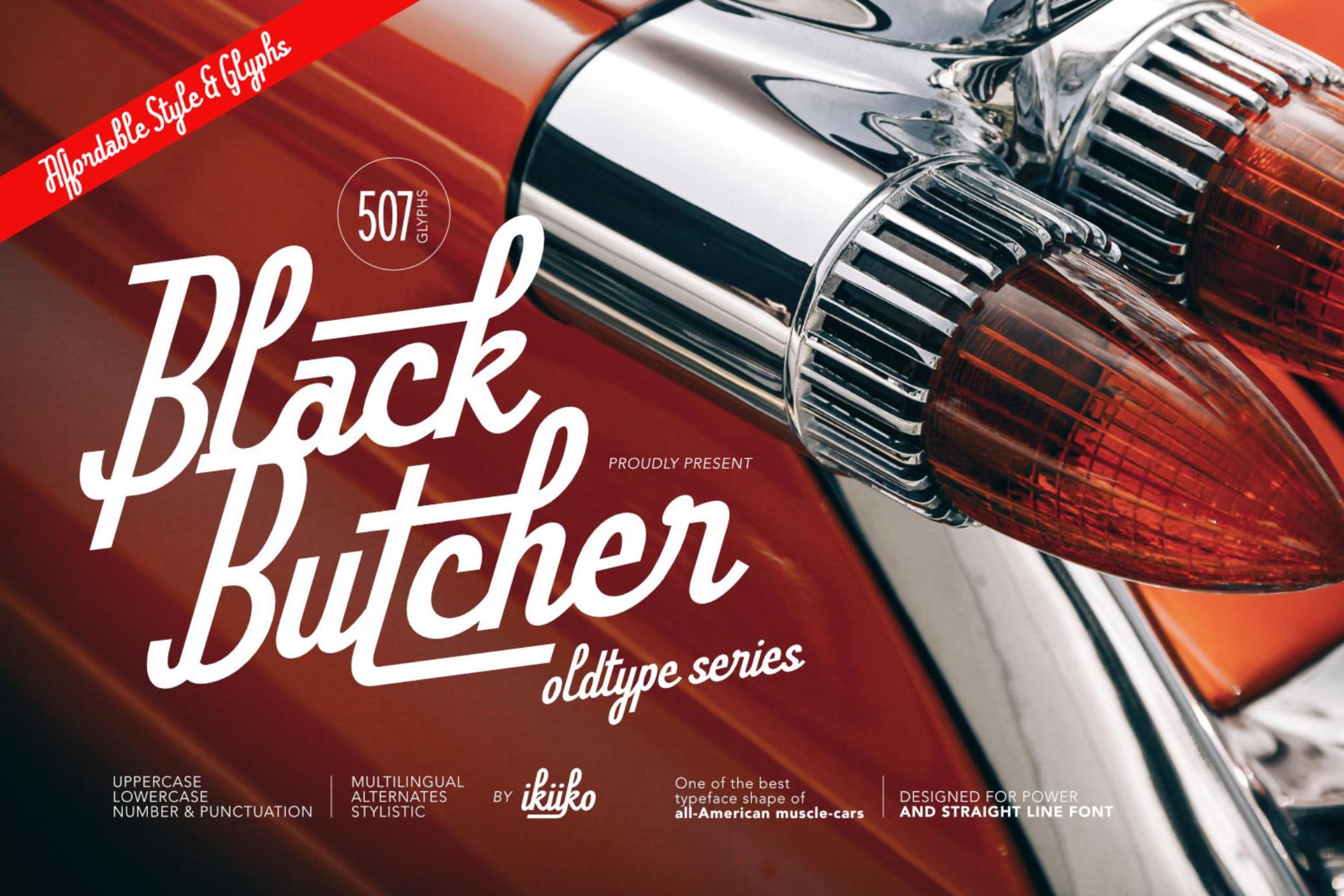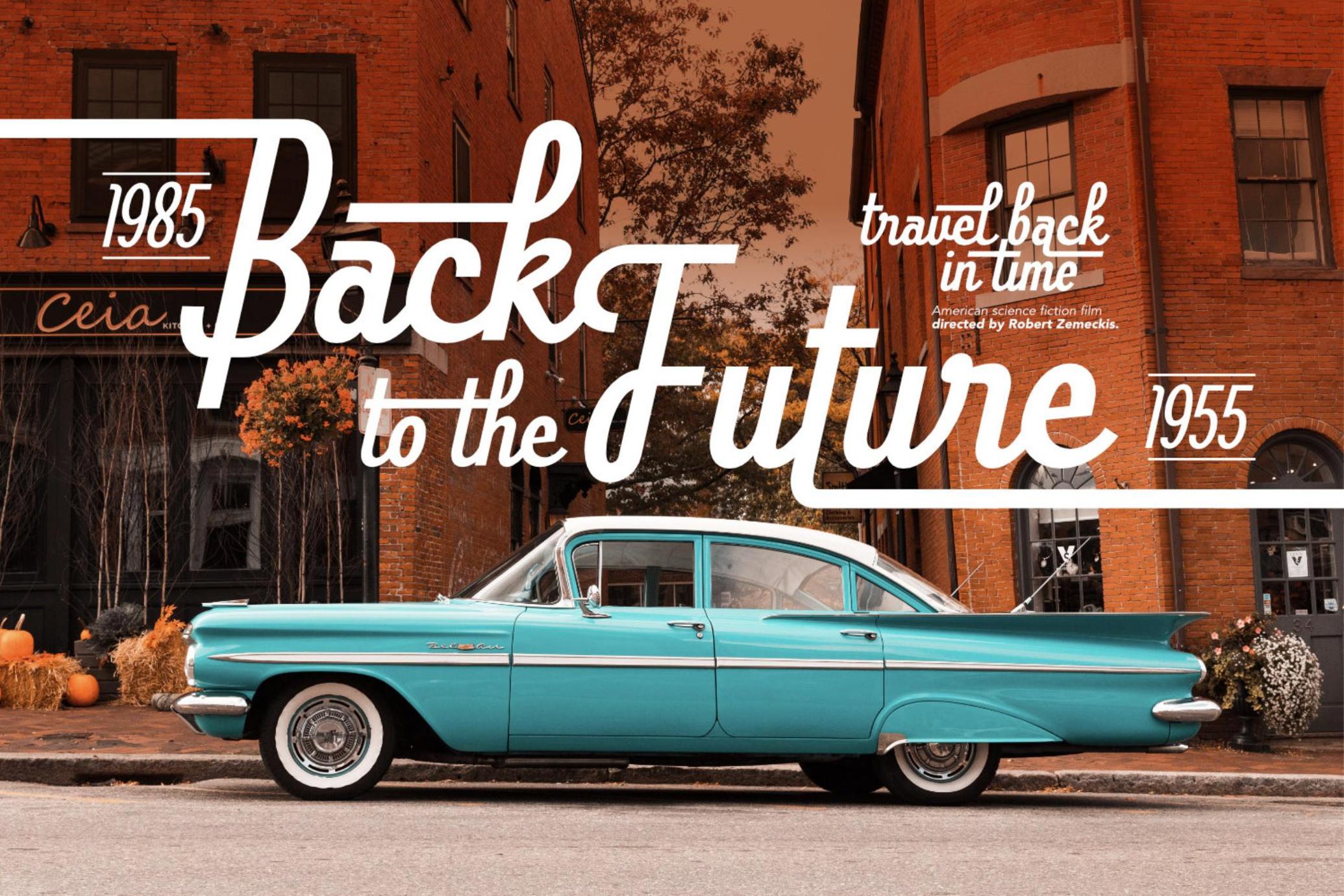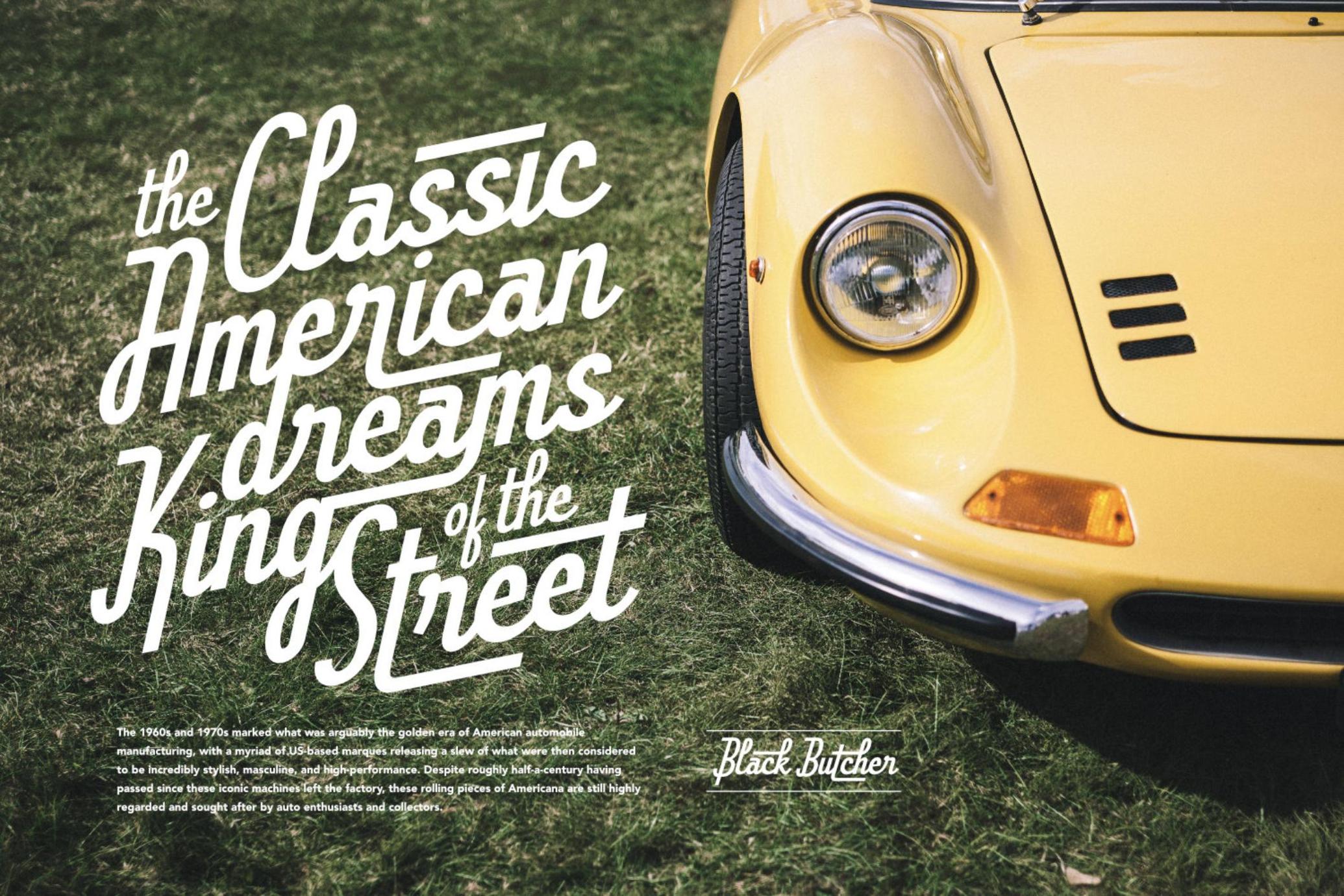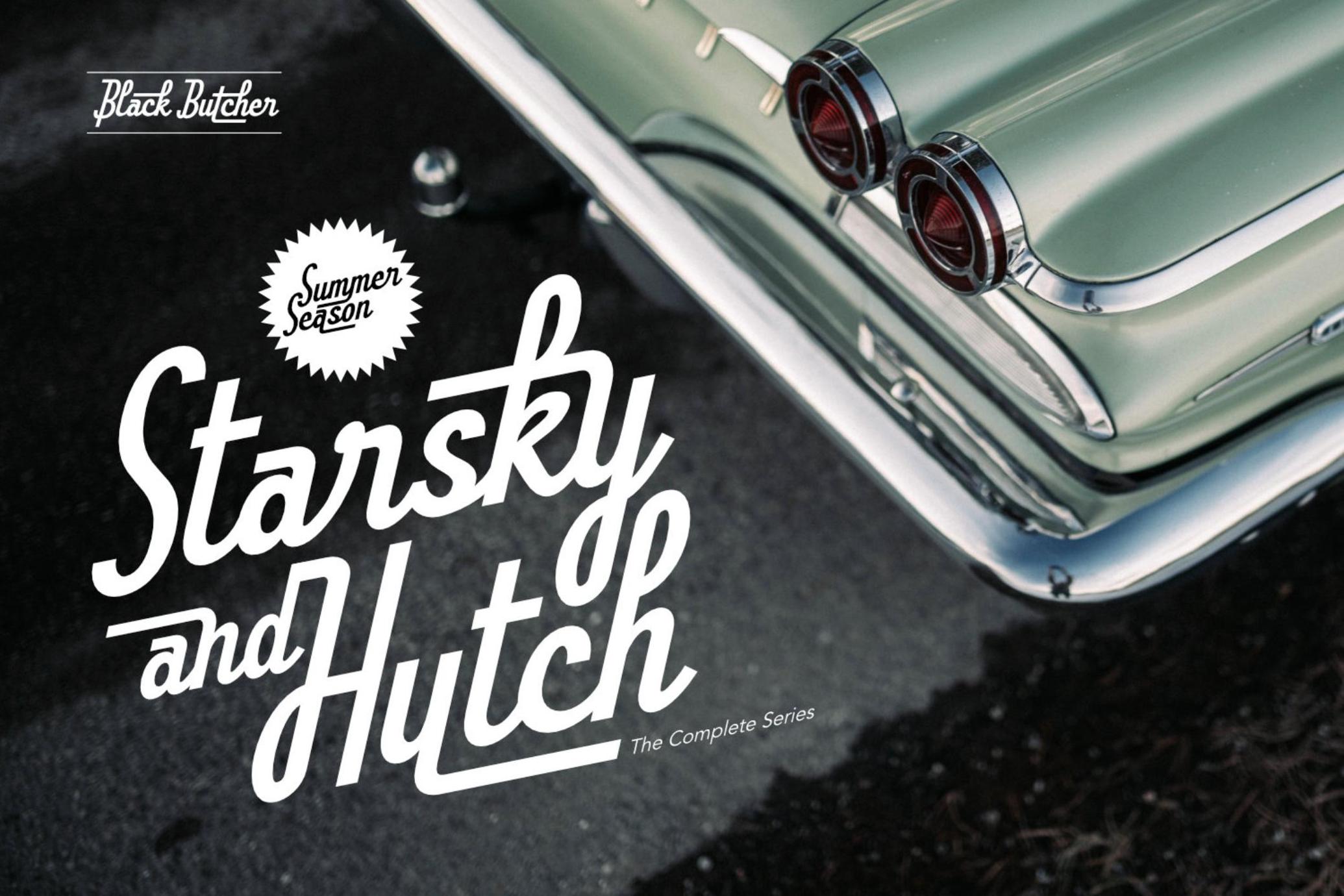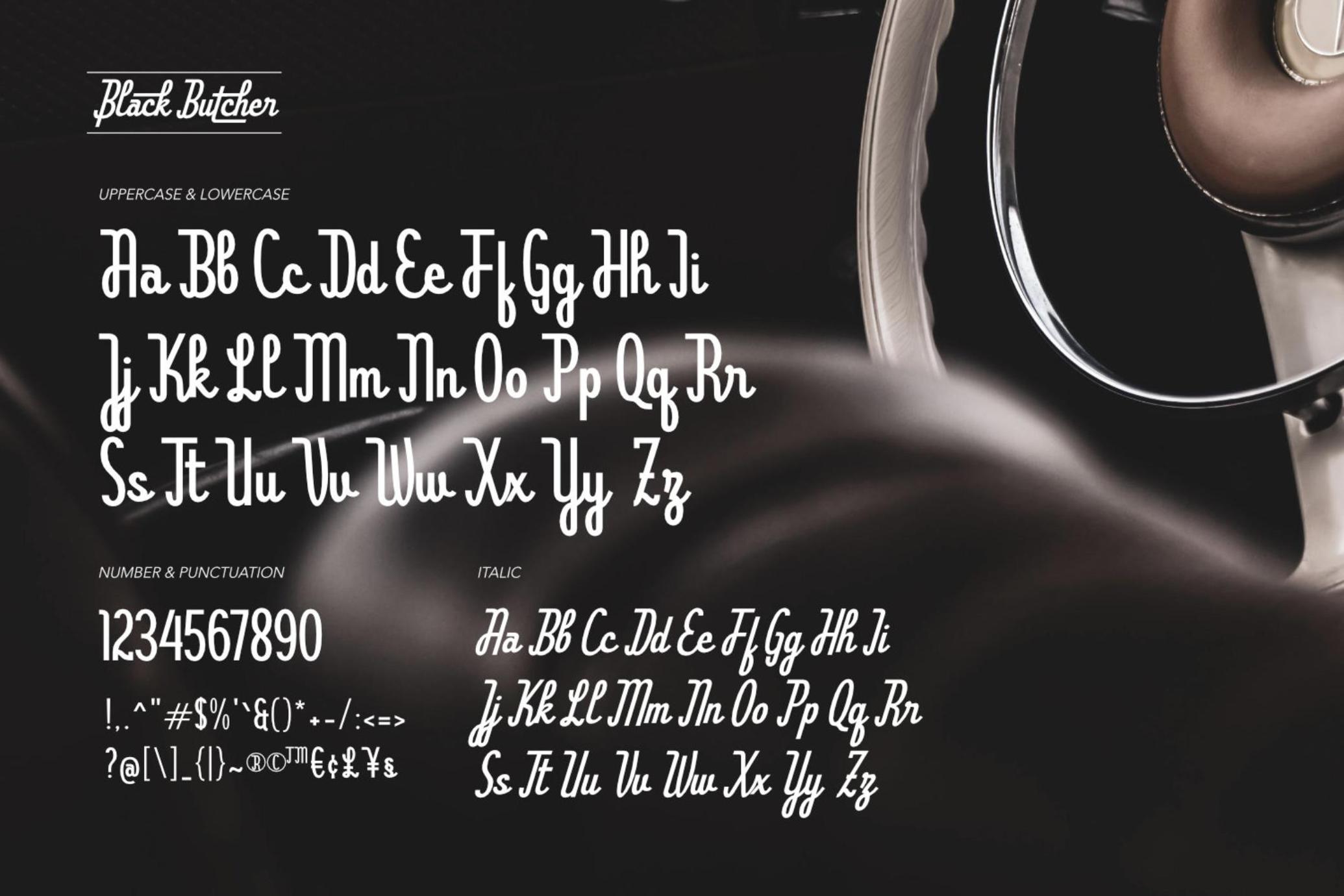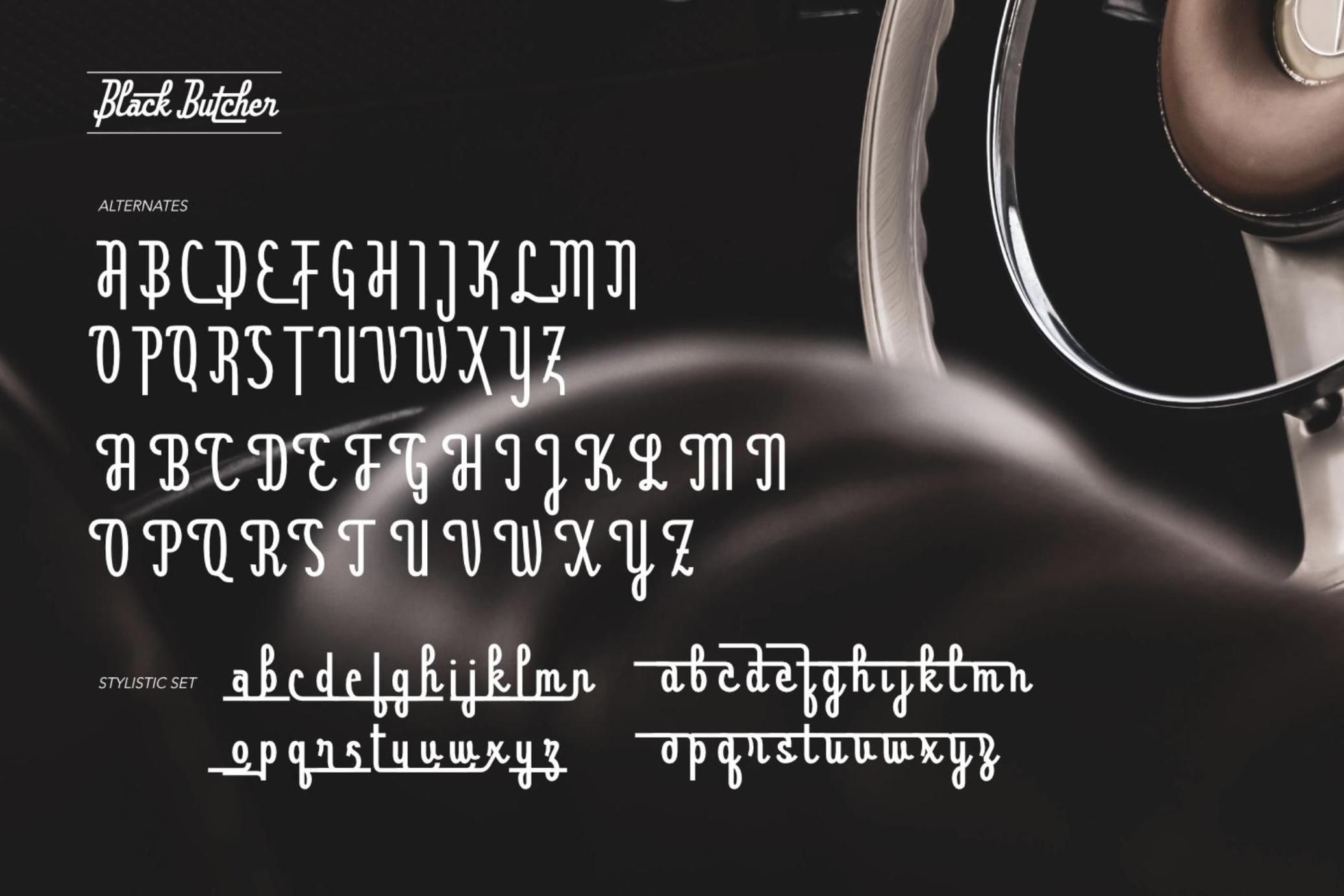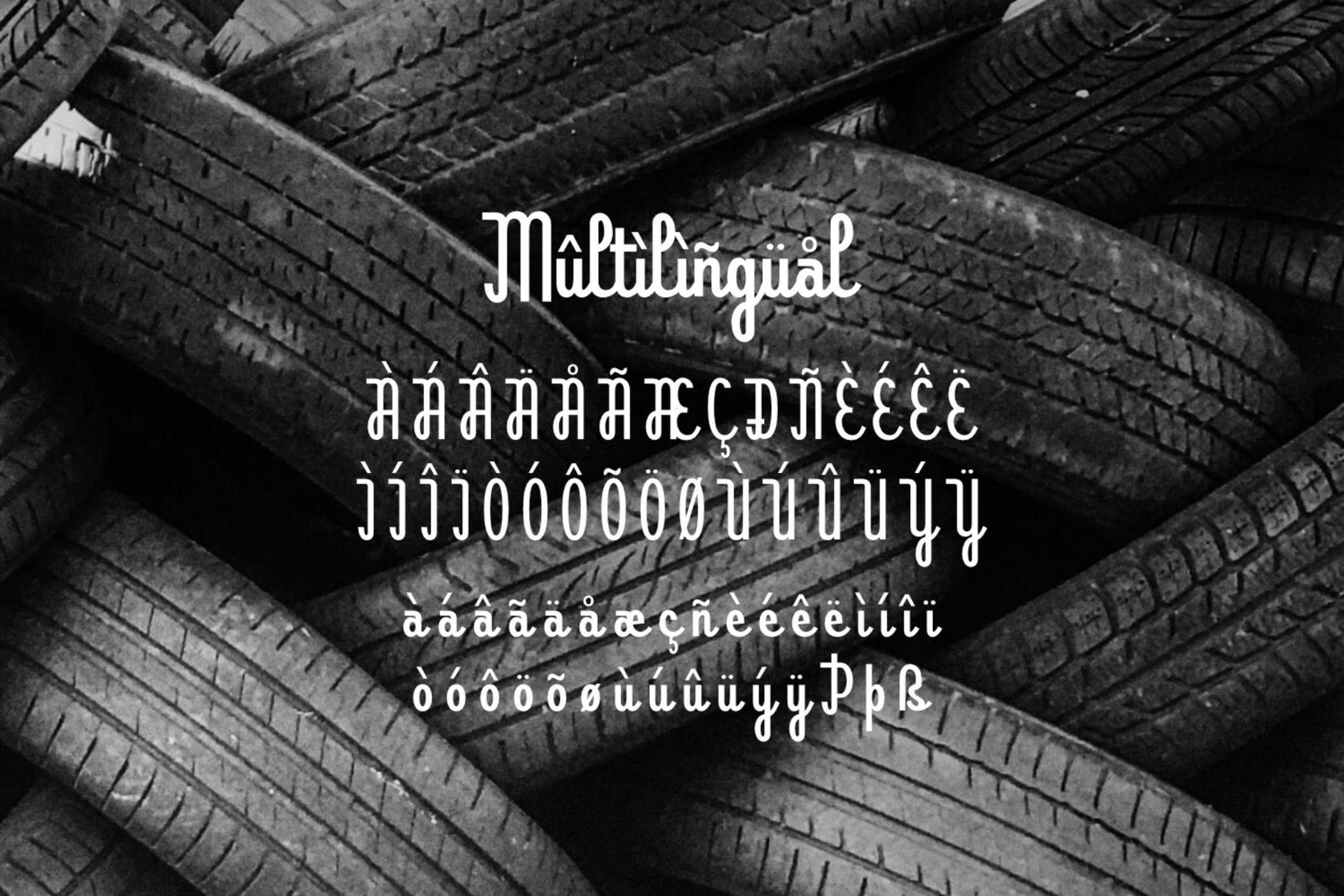
Black Butcher - Retro Car Font
Black Butcher is inspired by logo/typography of classic american muscle car . The letters are bold script fonts with a flexible and straight line. This font have a unique waveform and has a large selection of stylistic sets. You can play with many style choices!
This typeface is perfect for an vintage car logo, magazine cover, poster & flyer design for automotive event, and also good for vintage product, or simply as a stylish text overlay to any background image.
- 2 Weights : Regular & Italic
- Number & Punctuation
- Alternates & Stylistic